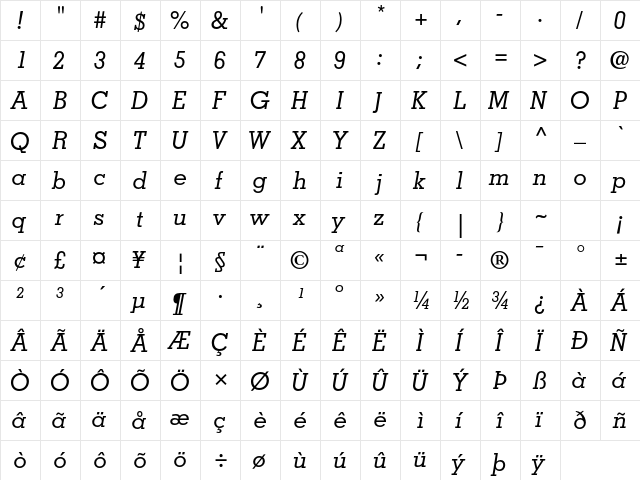
Memphis LT Std Medium Italic Font Preview
| Designer | Dr. Rudolf Wolf |
Design Context for Memphis LT Std Typeface
Memphis LT Std offers clean, dependable letterforms without strong stylistic allegiance, making it a practical choice for designers who need flexibility. The dynamic lean of this cut emphasises speed and emphasis in any layout. Its slender proportions lend an understated elegance to any composition.
Pro Tip: Try Memphis LT Std for annotation and caption copy alongside an upright companion — the contrast in angle creates a dynamic but ordered typographic system.